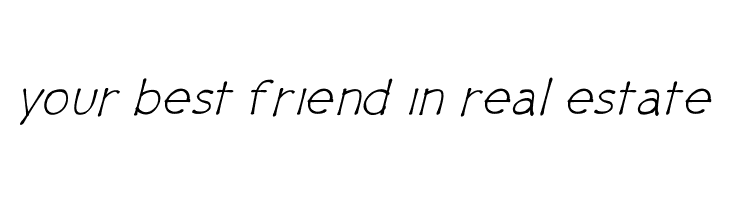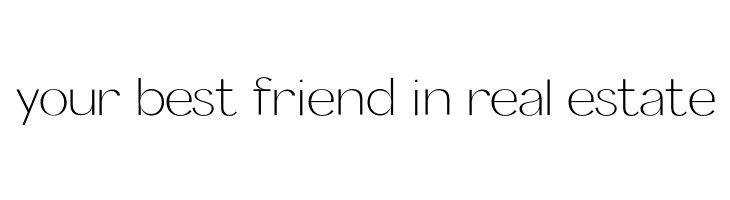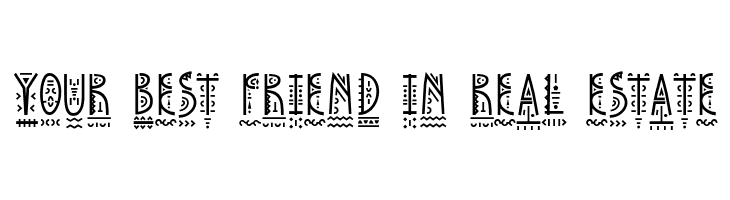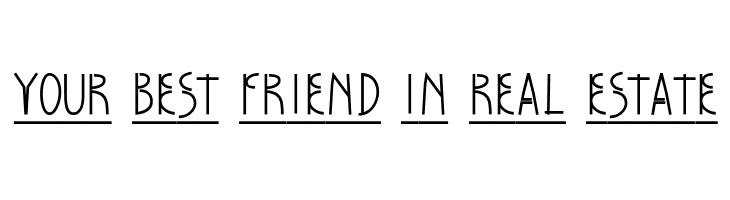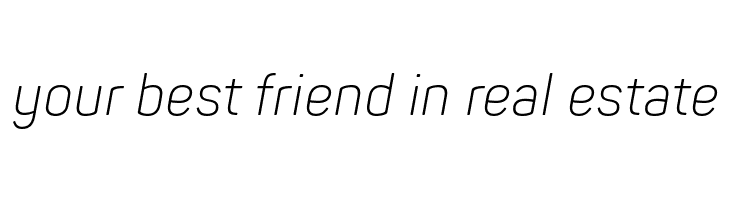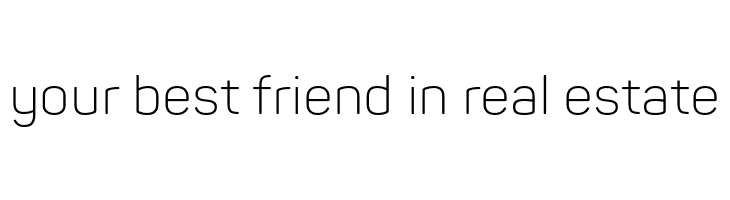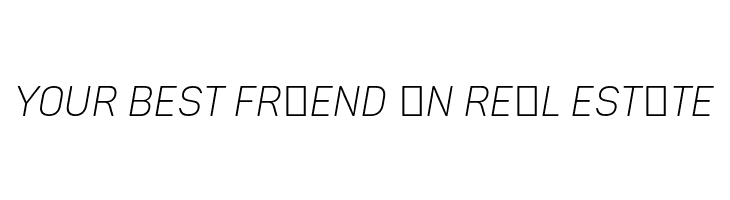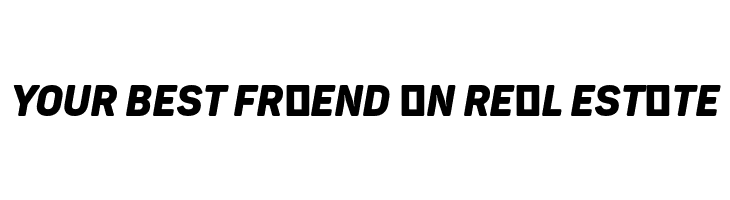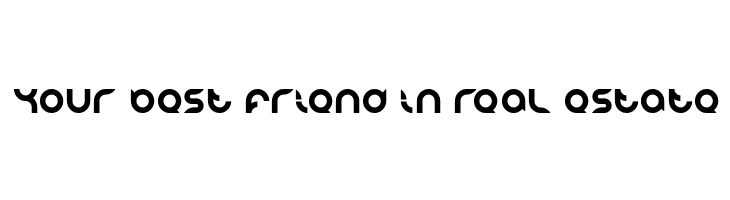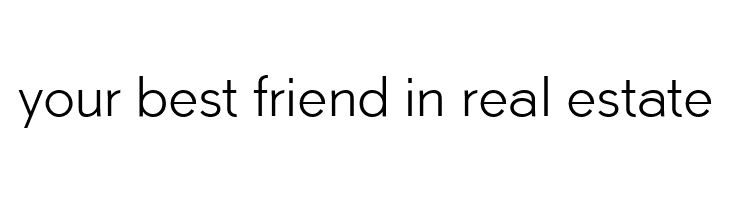
A light, handwritten-style font with an italic slant and consistent stroke thickness.
A modern, light sans-serif font with low contrast and excellent readability.
A modern, clean sans-serif font with a minimalist and elegant style.
A sleek, modern, light italic font with smooth curves and a dynamic appearance.
A modern, light sans-serif font with clean lines and balanced spacing.
A sleek and modern sans-serif typeface with clean lines and minimalistic design.
A bold, geometric font with a futuristic and modern design.
A modern, condensed, and light font with geometric letterforms.
A sleek, condensed, light italic font with a modern and elegant style.
A light, modern serif font with elegant, elongated characters and subtle serifs.
A light, italic serif font with elegant and refined characteristics.
A geometric, abstract font with modern, artistic lines and shapes.
A bold, modern sans-serif font with thick, uniform strokes.
A clean, modern sans-serif font with a light weight and geometric design.
A modern, light sans-serif font with a clean and minimalist design.
A sleek, modern, light italic font with balanced spacing and smooth strokes.
A modern, light, italic font with clean lines and a dynamic slant.
Bold, italic, and narrow font with a modern, dynamic style.
A modern, narrow sans-serif font with a clean and elegant design.
A sleek, narrow, and light italic font with a modern and elegant style.
A modern, narrow sans-serif font with a light weight and low contrast.
A sleek, narrow, and light italic font with a modern and elegant style.
A bold, narrow, and modern font ideal for impactful headlines.
A modern, light sans-serif font with clean lines and balanced proportions.